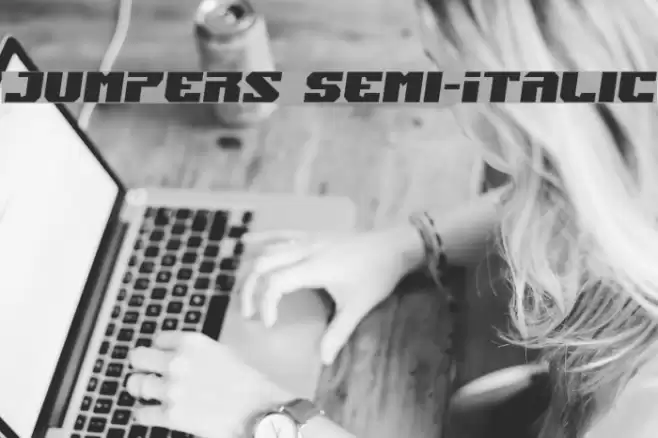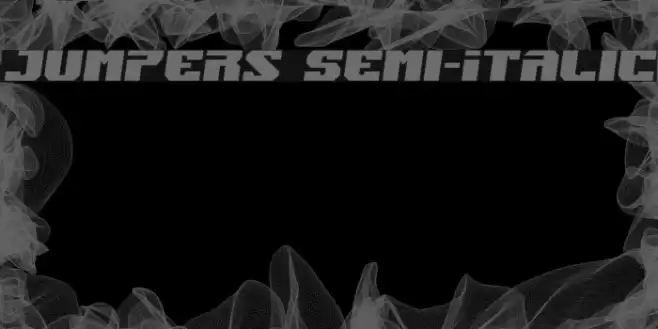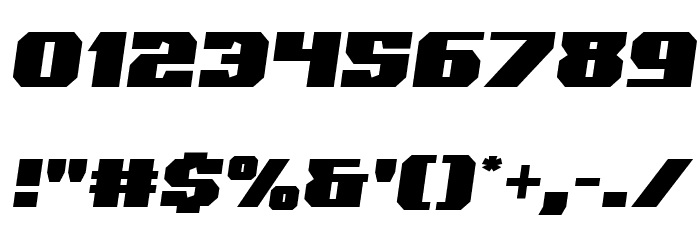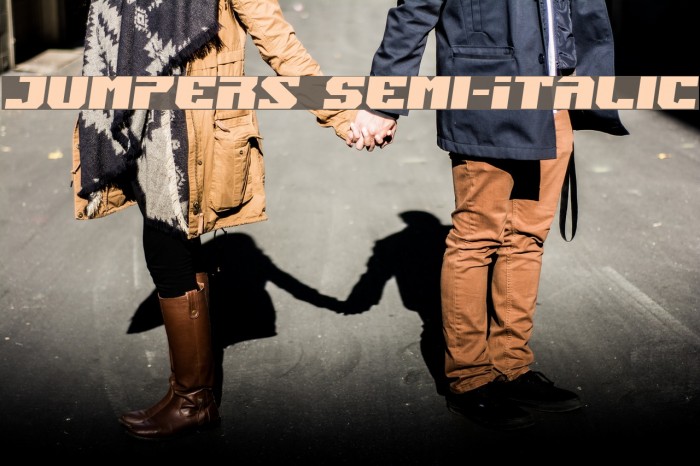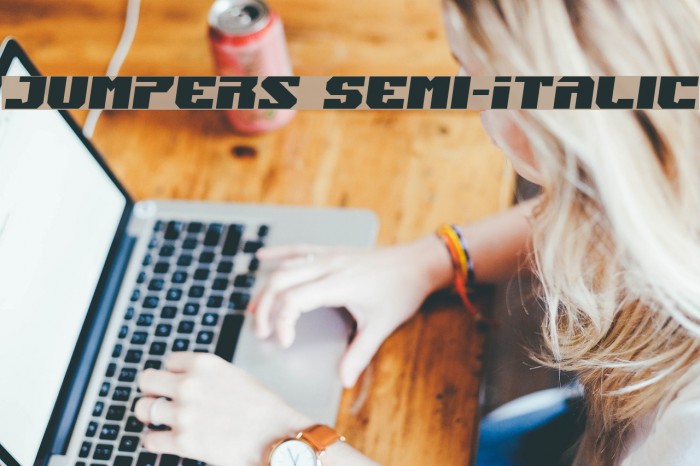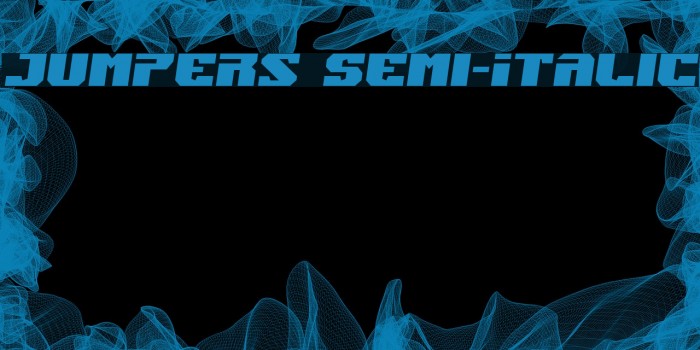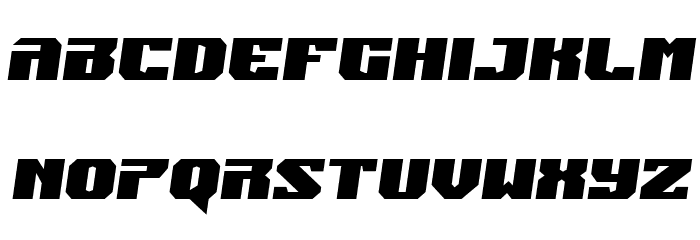
Jumpers Semi-Italic Font
Jumpers Semi-Italic Description
This font features a bold, angular design with a semi-italic slant, giving it a dynamic and modern appearance. The characters are sharply cut with distinct edges, creating a sense of movement and energy. The uppercase and lowercase letters maintain a consistent style, with a slight forward tilt that enhances the font's aggressive and sporty look. The numbers and special characters follow the same design principles, ensuring uniformity across all glyphs. This font is ideal for projects that require a strong, impactful presence.
A bold, angular, semi-italic font with a dynamic and modern style from Sci-fi fonts.
- Proposed Projects: Perfect for sports branding, action movie posters, video game titles, and dynamic event flyers.